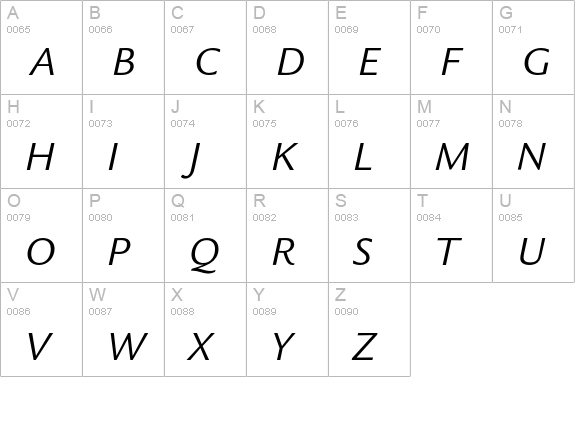
Introducing LegacySansEF-BookItalic, a stunning and elegant font that exudes sophistication and charm. This font is the perfect choice for those seeking a touch of class and style in their designs. With its sleek and modern design, LegacySansEF-BookItalic captures attention and adds a touch of professionalism to any project. Whether you're designing a logo, creating a website, or working on a print publication, this font will elevate your work to the next level. What makes LegacySansEF-BookItalic even more impressive is that it is available for free! That's right, you can download this incredible font without spending a dime. Simply head over to FontsMarket.com, a trusted source for high-quality fonts, and start using LegacySansEF-BookItalic in your designs today. This font features beautifully crafted letterforms with just the right amount of curvature, creating a harmonious balance between elegance and legibility. The italicized variation adds a touch of flair and personality, making it a versatile choice for a wide range of design projects. LegacySansEF-BookItalic is incredibly versatile and can be used in various contexts, from branding and advertising to editorial layouts and invitations. Its versatility ensures that your designs will stand out from the crowd and leave a lasting impression. So why wait? Download LegacySansEF-BookItalic now and let your creativity soar. With its timeless appeal and the added bonus of being free, this font is a must-have for any designer or creative professional. Don't miss out on the opportunity to enhance your designs with LegacySansEF-BookItalic, available exclusively at FontsMarket.com.